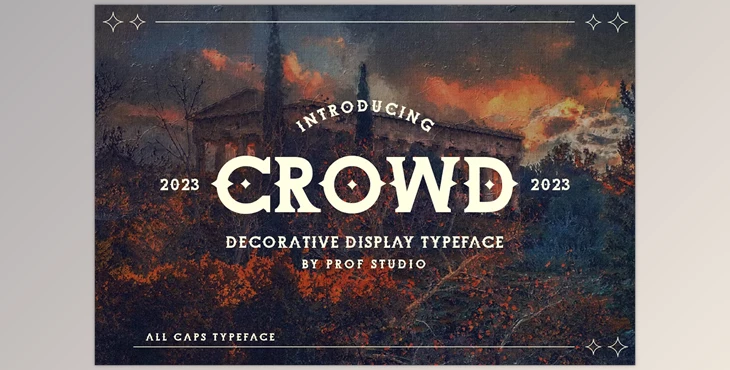
Crowd – Decorative Display Typeface Font:
Introducing Crowd, a captivating decorative display font designed to elevate your logo, brand, headings, and displays. Crafted with an exquisite AZ uppercase character set along with numbers and punctuation marks in OpenType Standard, this font offers versatility and style for various design projects.